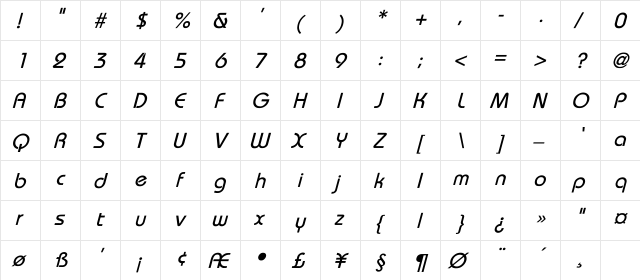
Bauhaus-Thin-Italic Regular Font Preview
Design Context for Bauhaus-Thin-Italic Typeface
Bauhaus-Thin-Italic takes a measured approach to typography — its balanced proportions and neutral character make it a reliable workhorse for both digital and print work. The dynamic lean of this cut emphasises speed and emphasis in any layout. The delicate stroke weight brings airiness and refinement to layouts.
Pro Tip: Use Bauhaus-Thin-Italic for emphasis, pull quotes, and subheadings where its slanted energy can add rhythm to the layout.